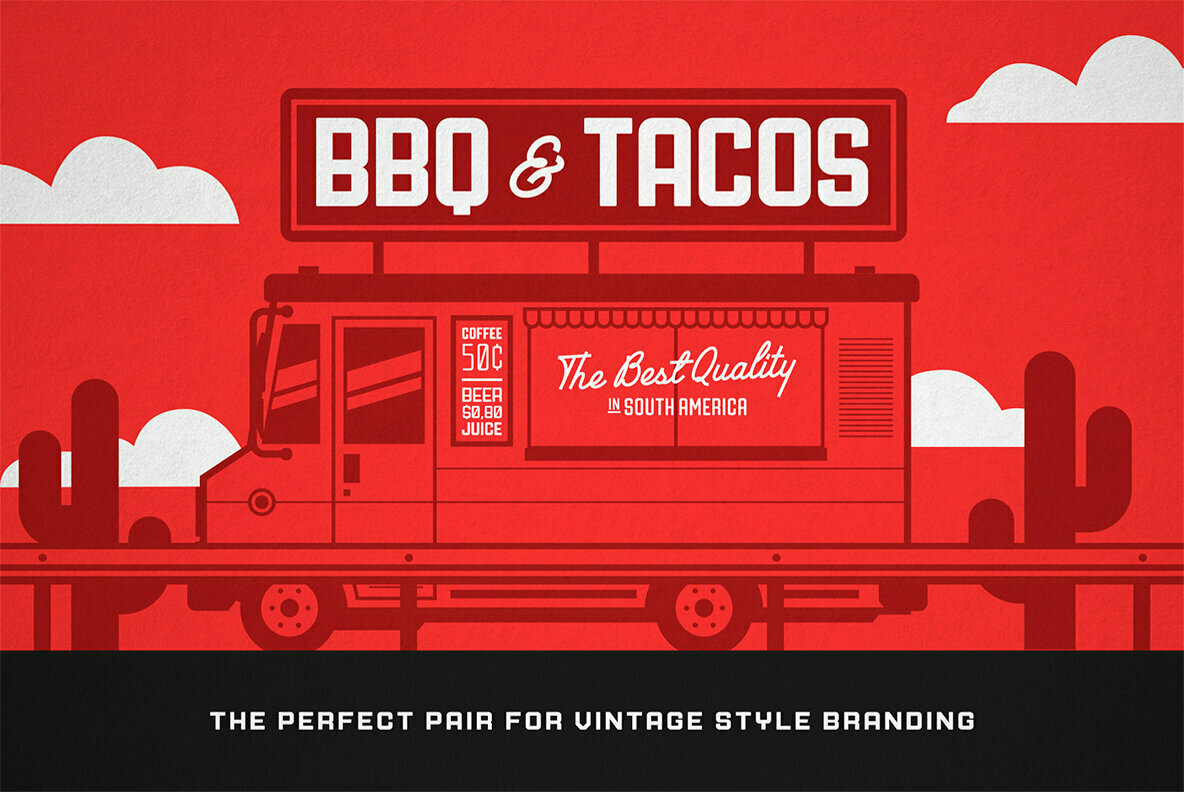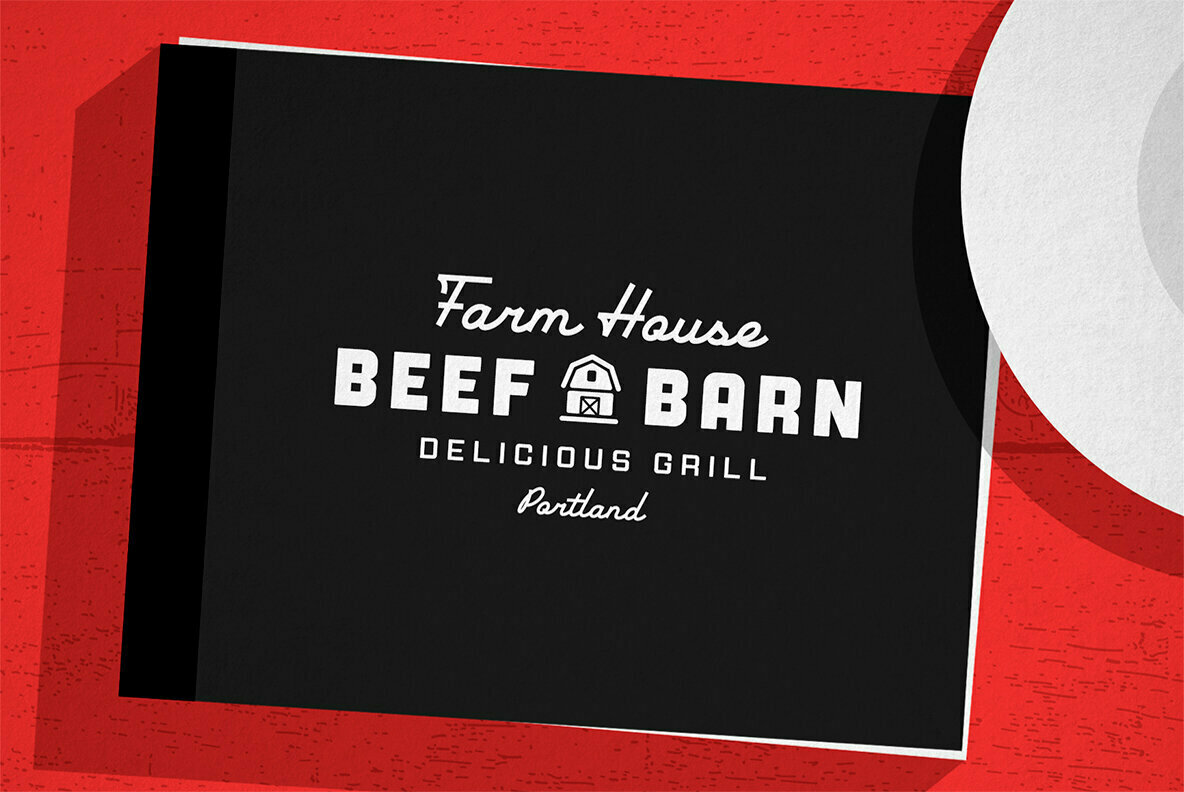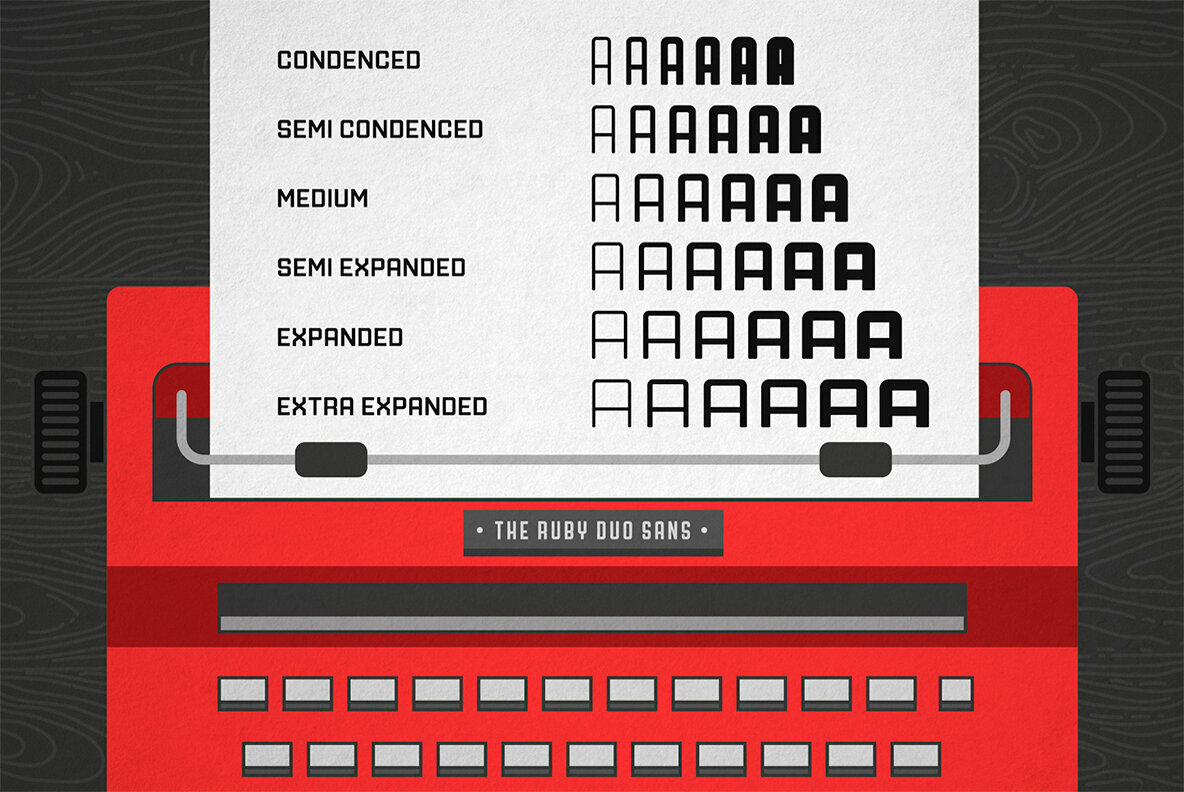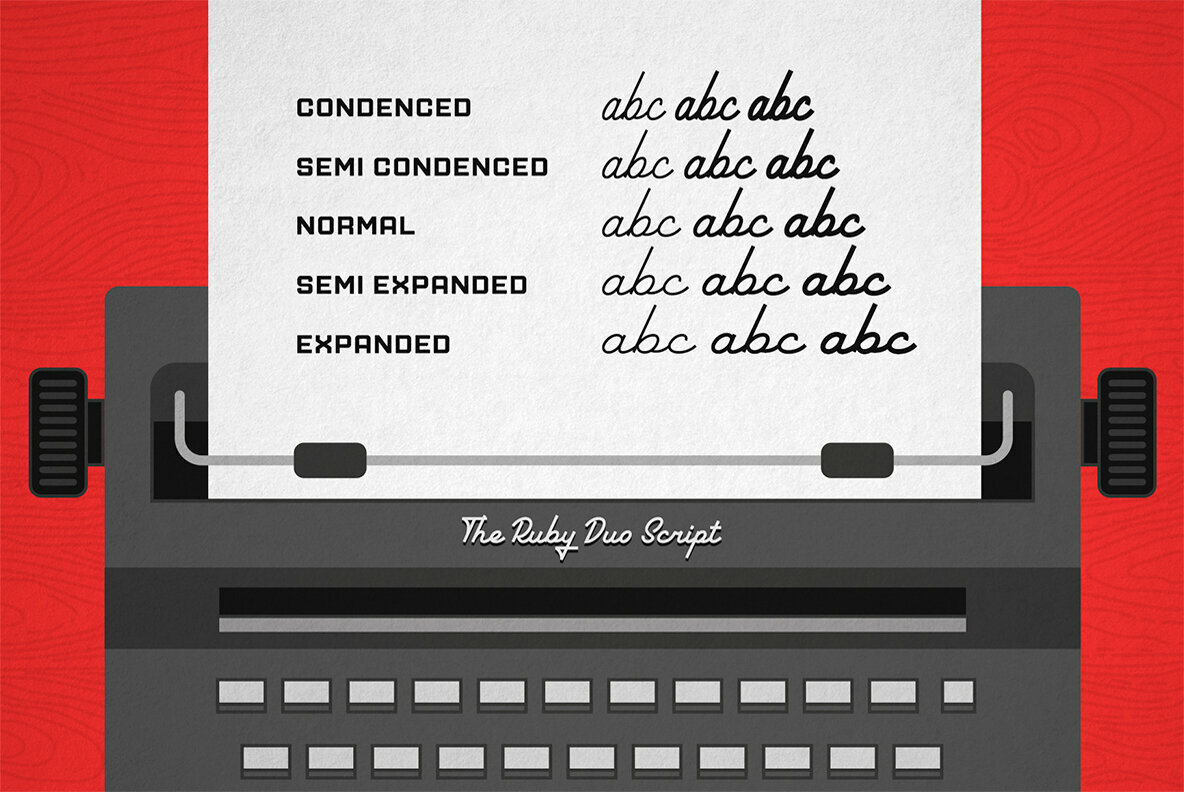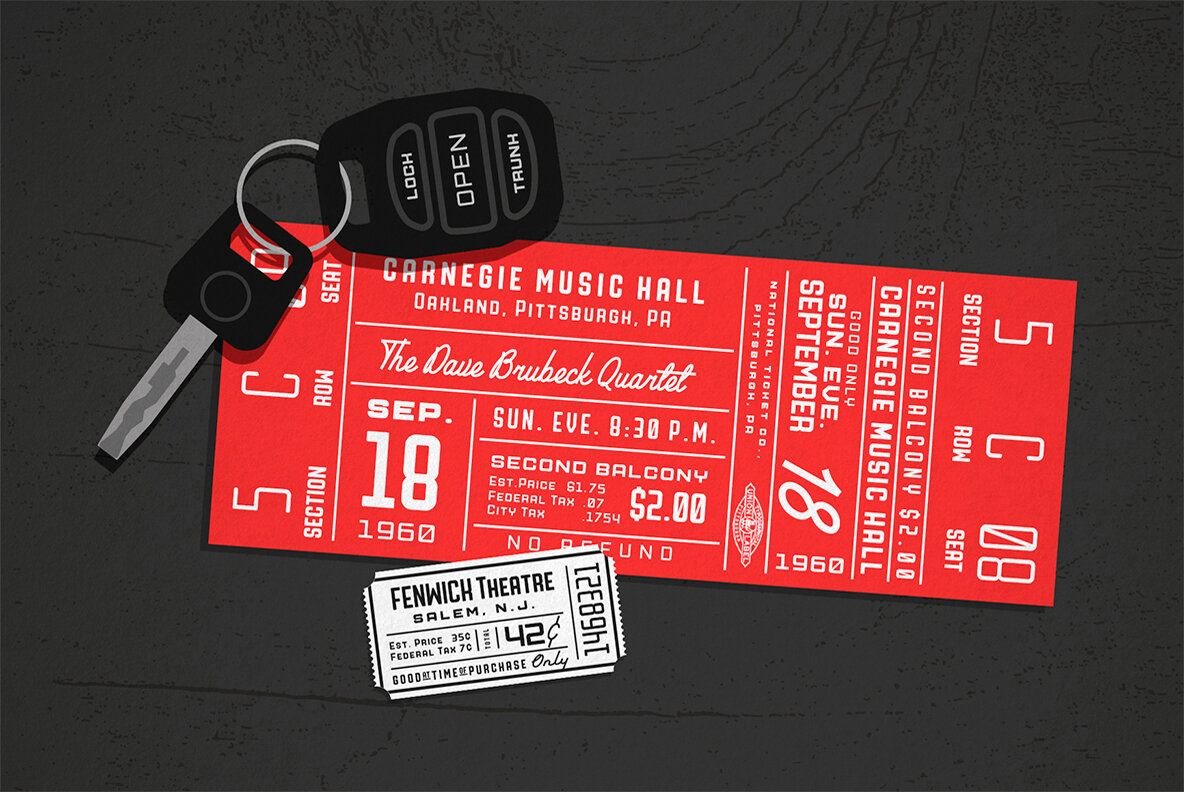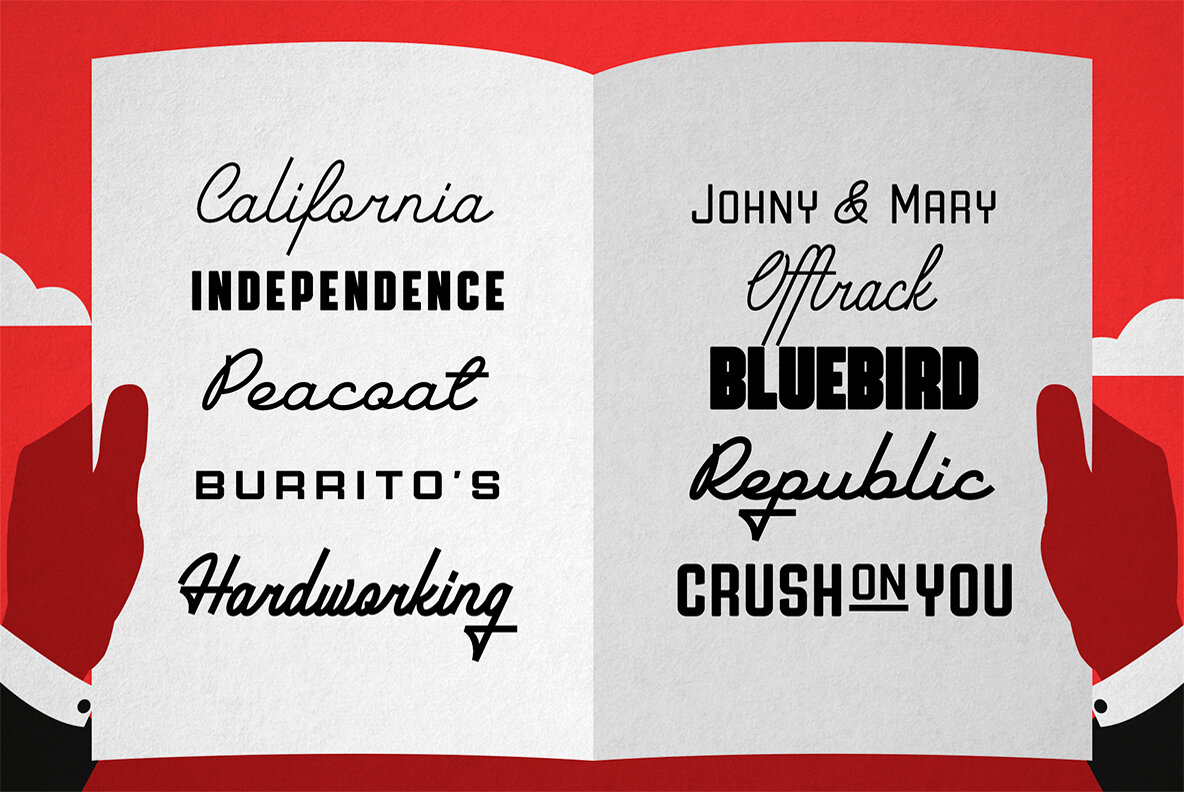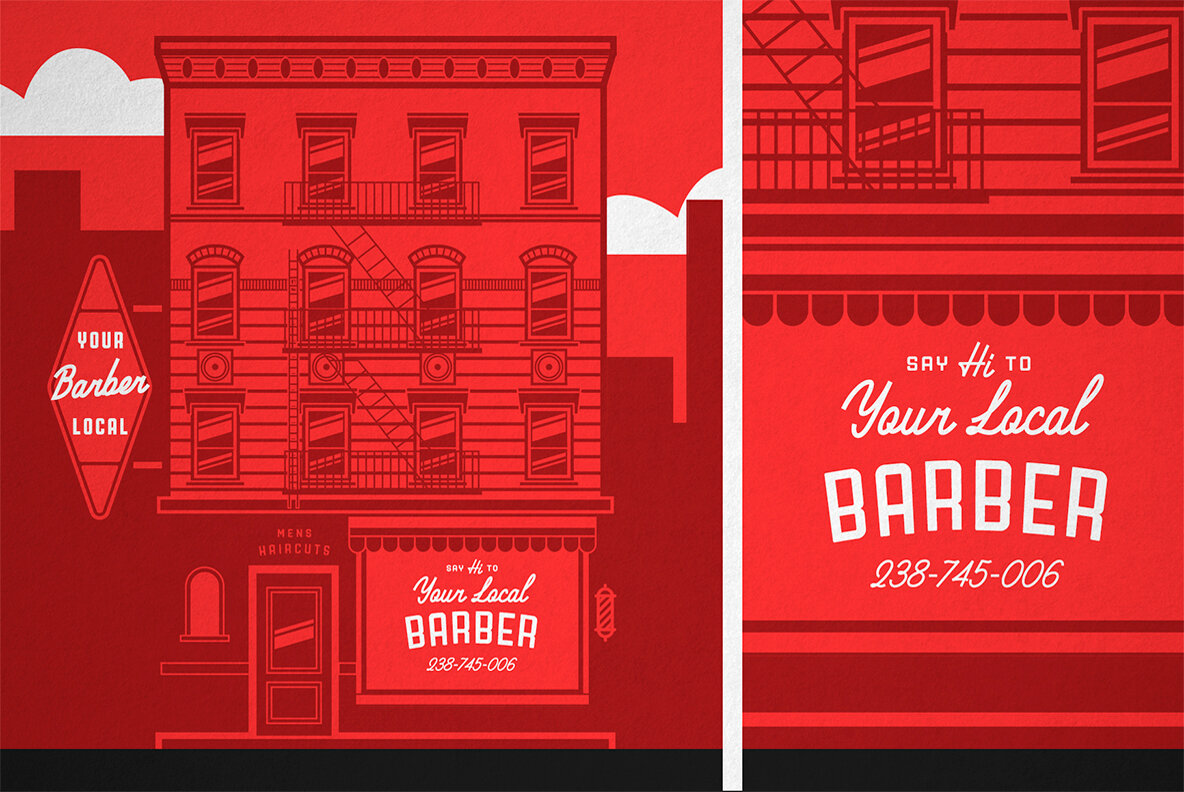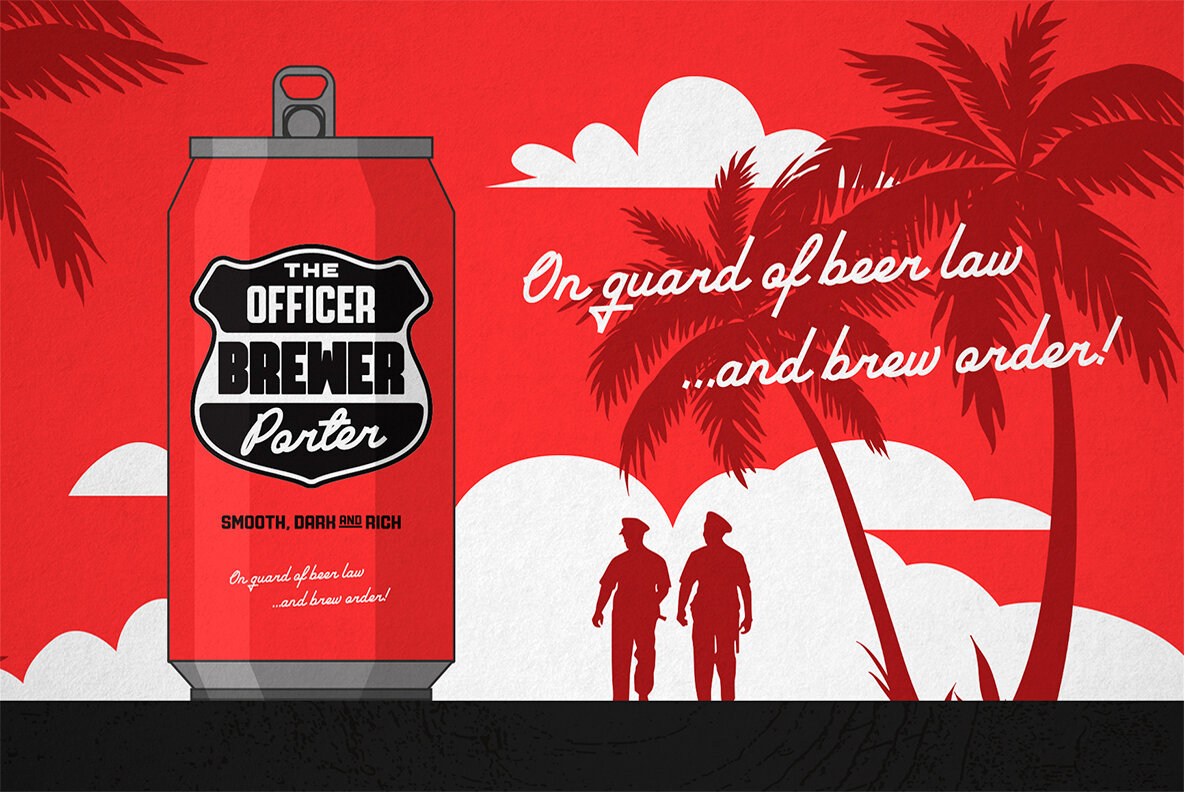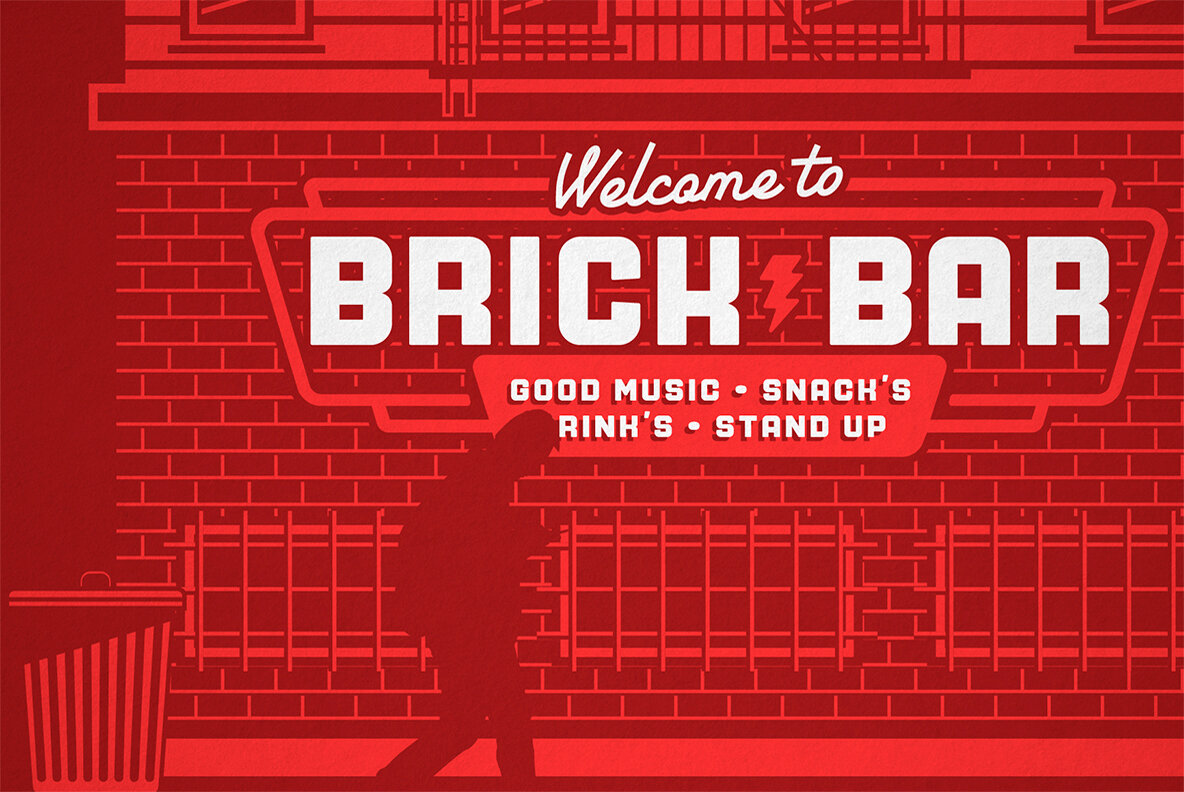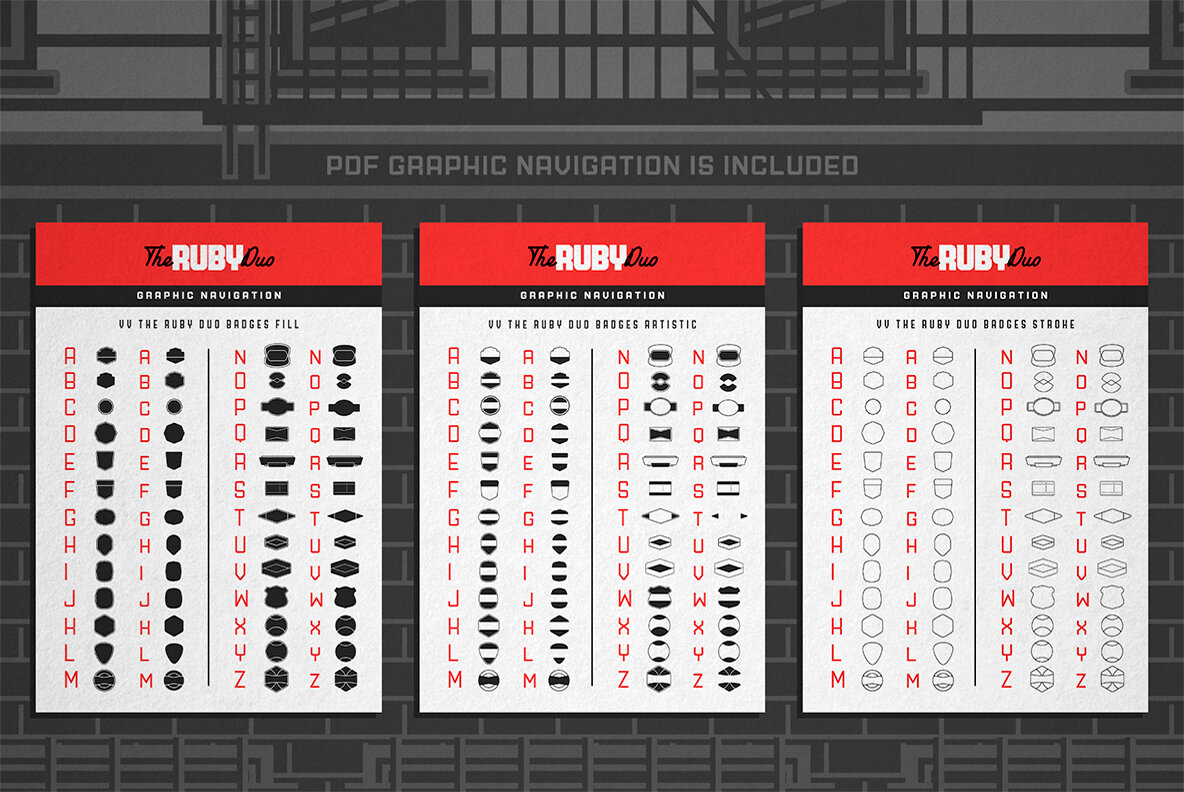
VV The Ruby Duo Font
The Ruby Duo - a retro inspired font duo with a wide range of sans and script styles. Rugged and simple sans with a cool pair of mono line script. The main thing is the possibility of various combinations of using - from Condensed to Extra Expanded and from Light to Black. You will definitely find the best way to use in your projects with more than 50 styles. The sans has underline small caps alternates to use it with conjunctions. The script also has some alternates to change the script mood. Also, you will find a five graphic fonts with 130 elements total! A lot of vintage badge shapes and more than 100 vector vintage mood icons to use it in your badges or logos.